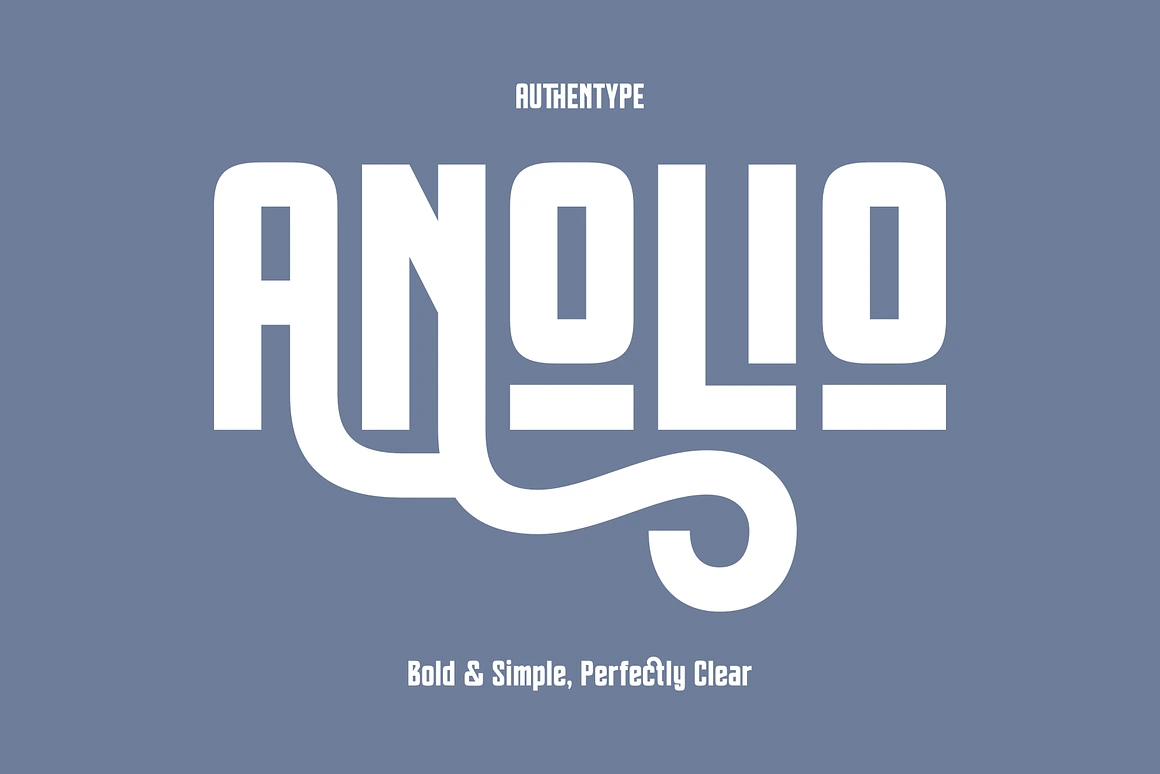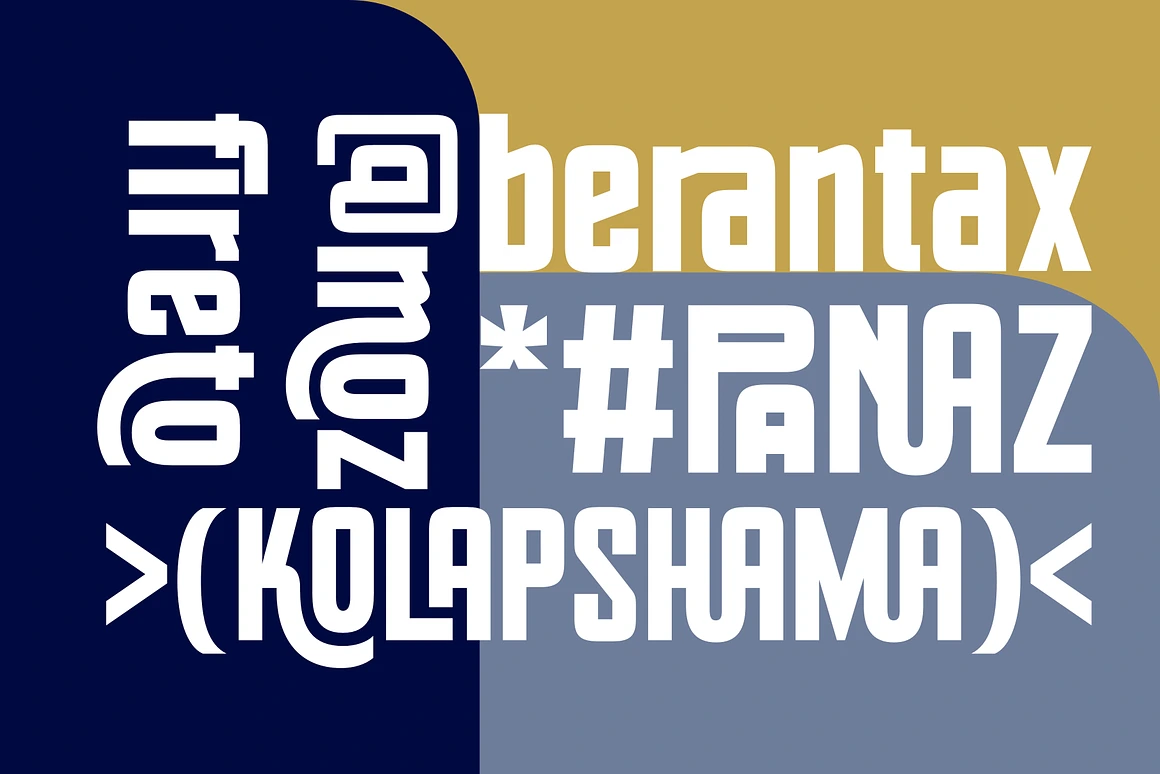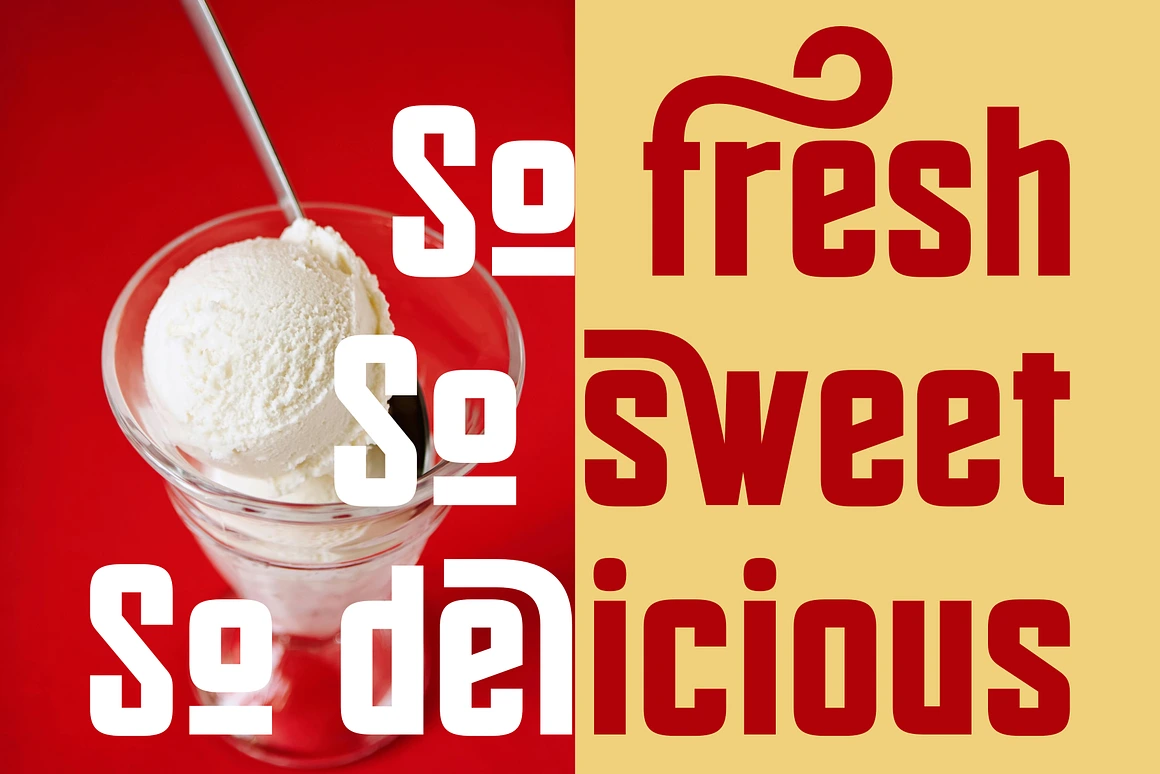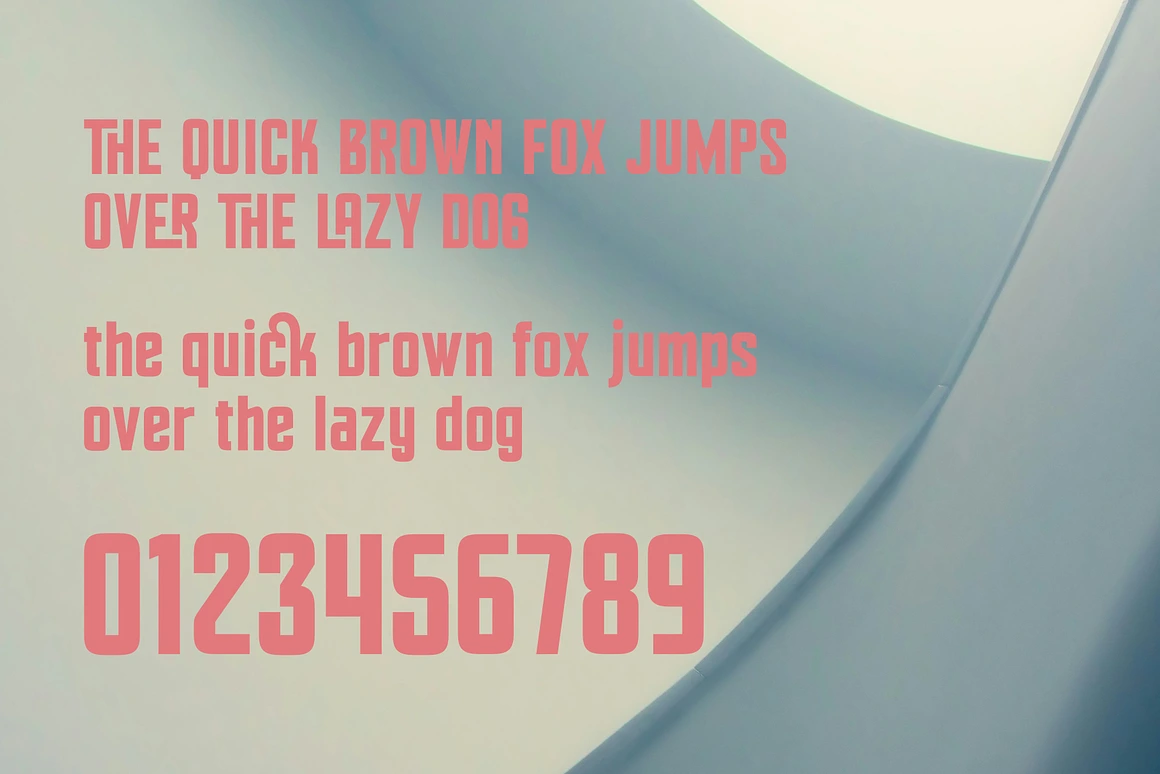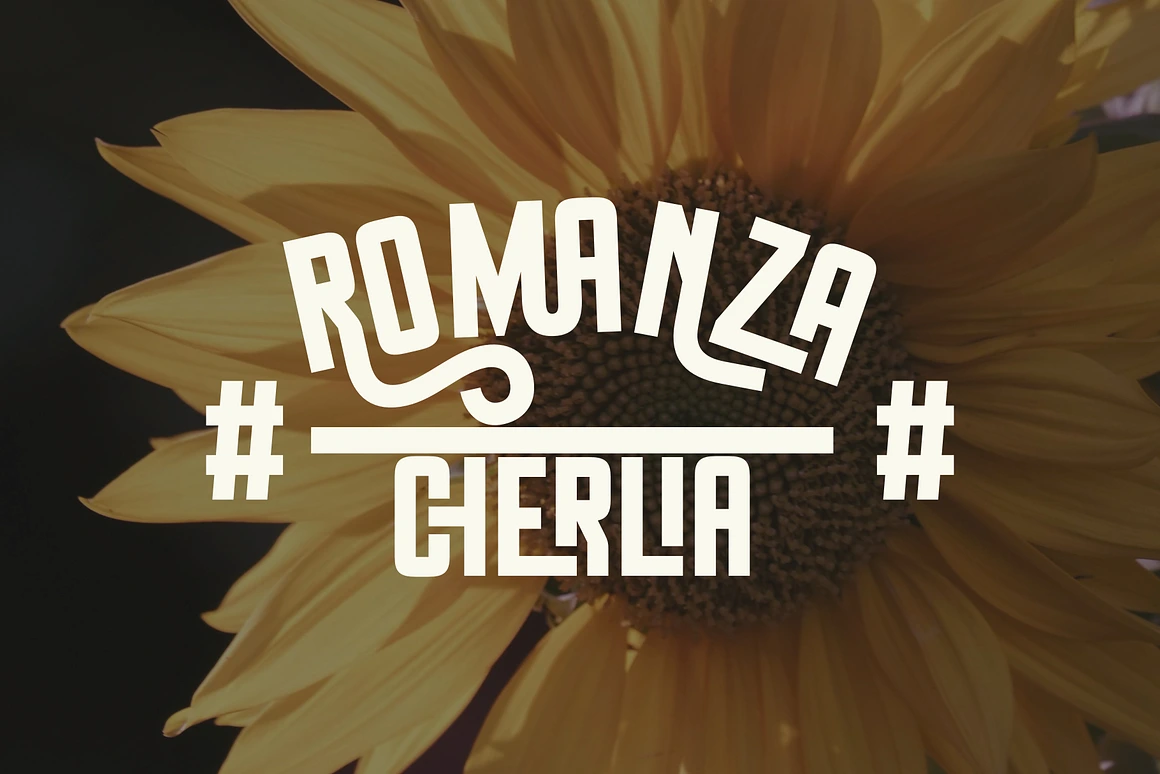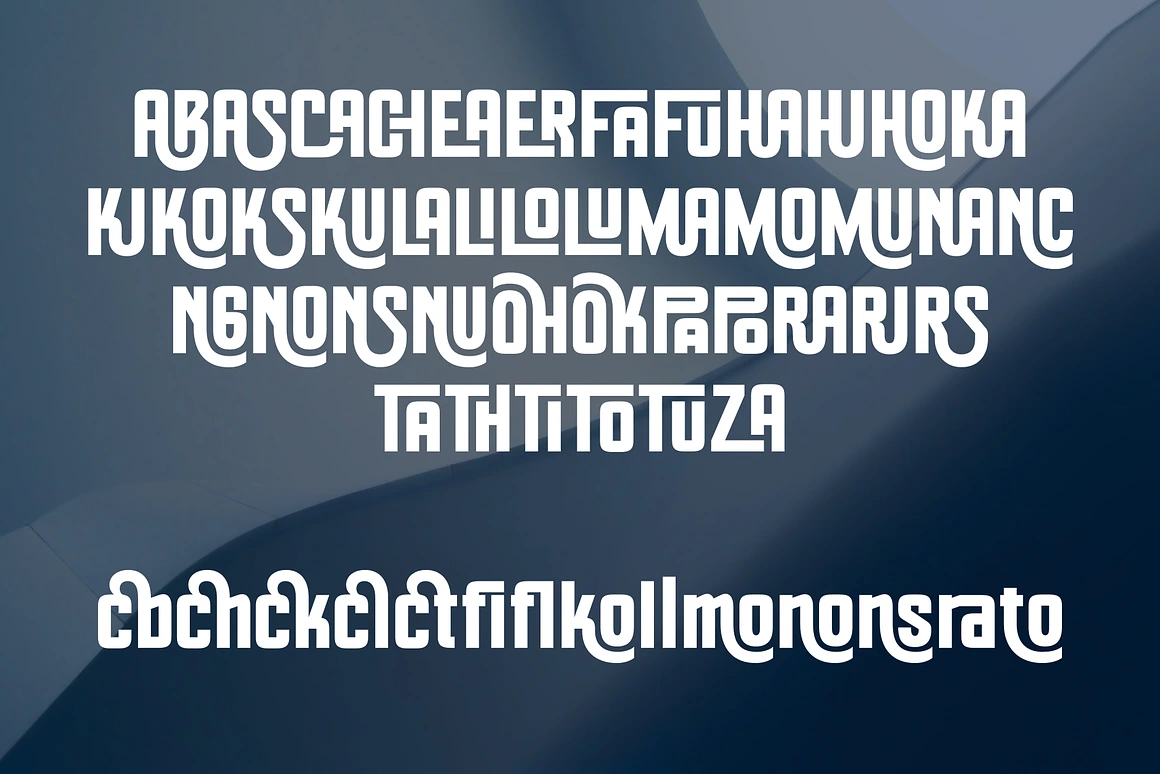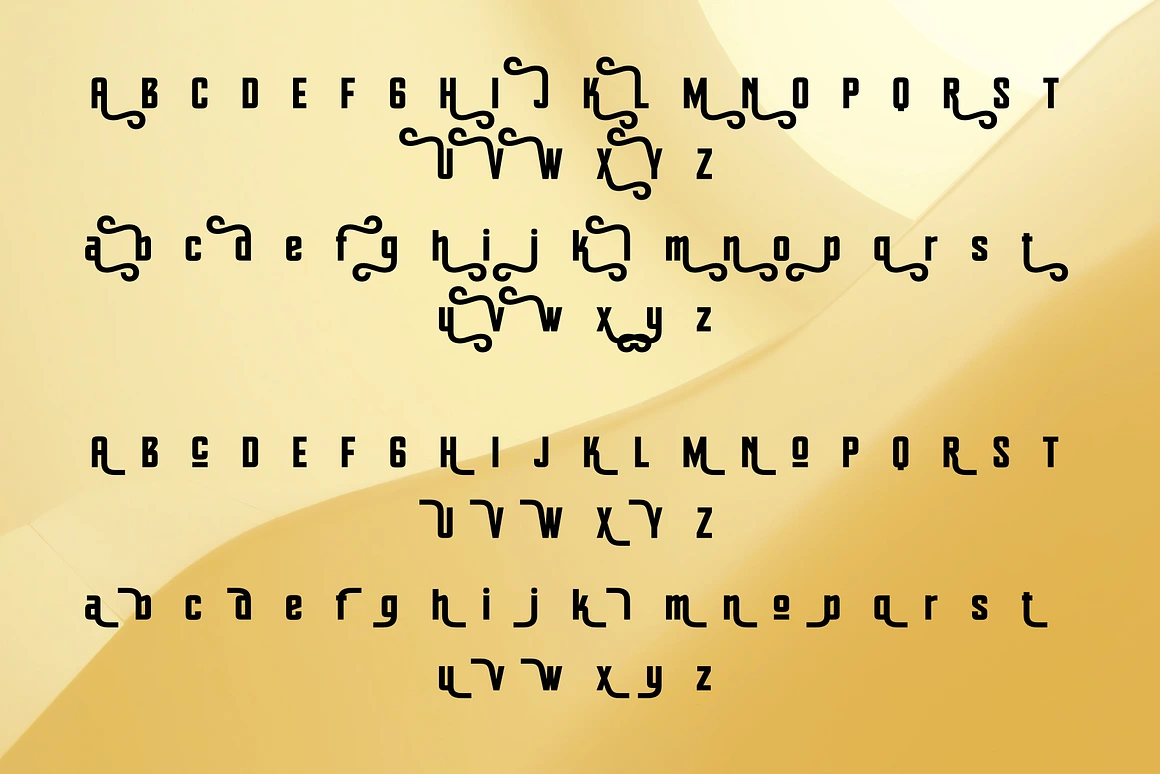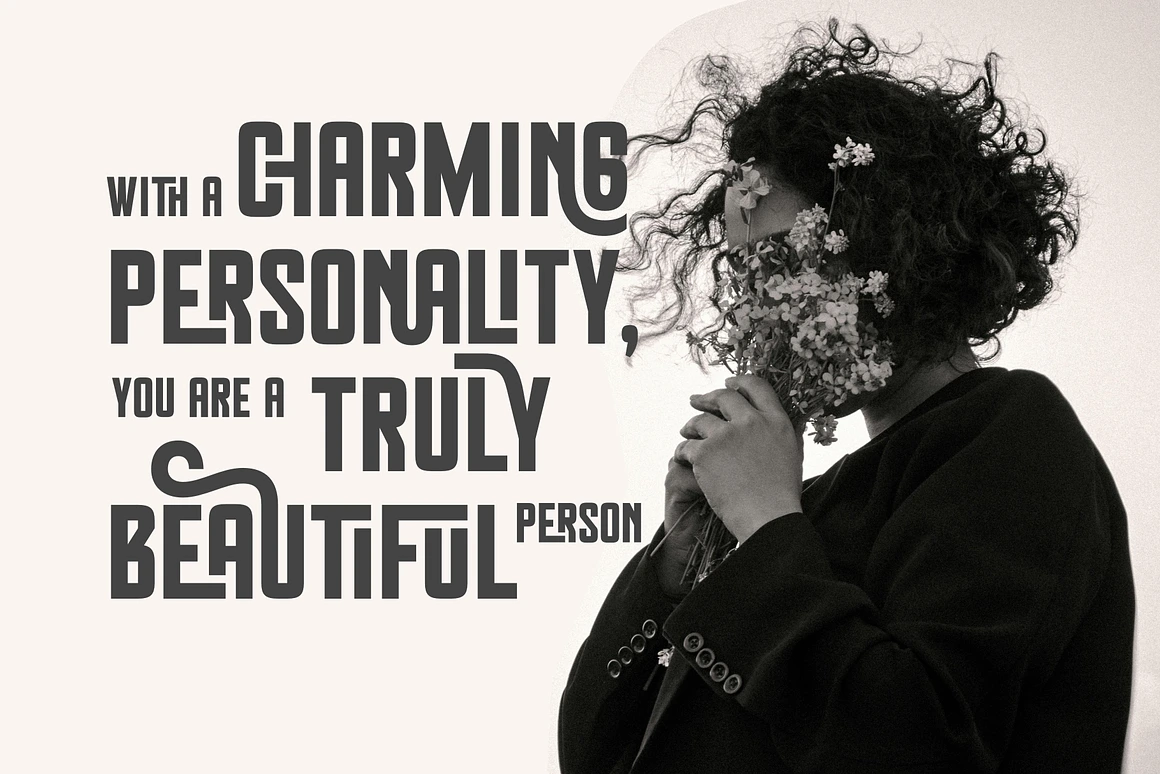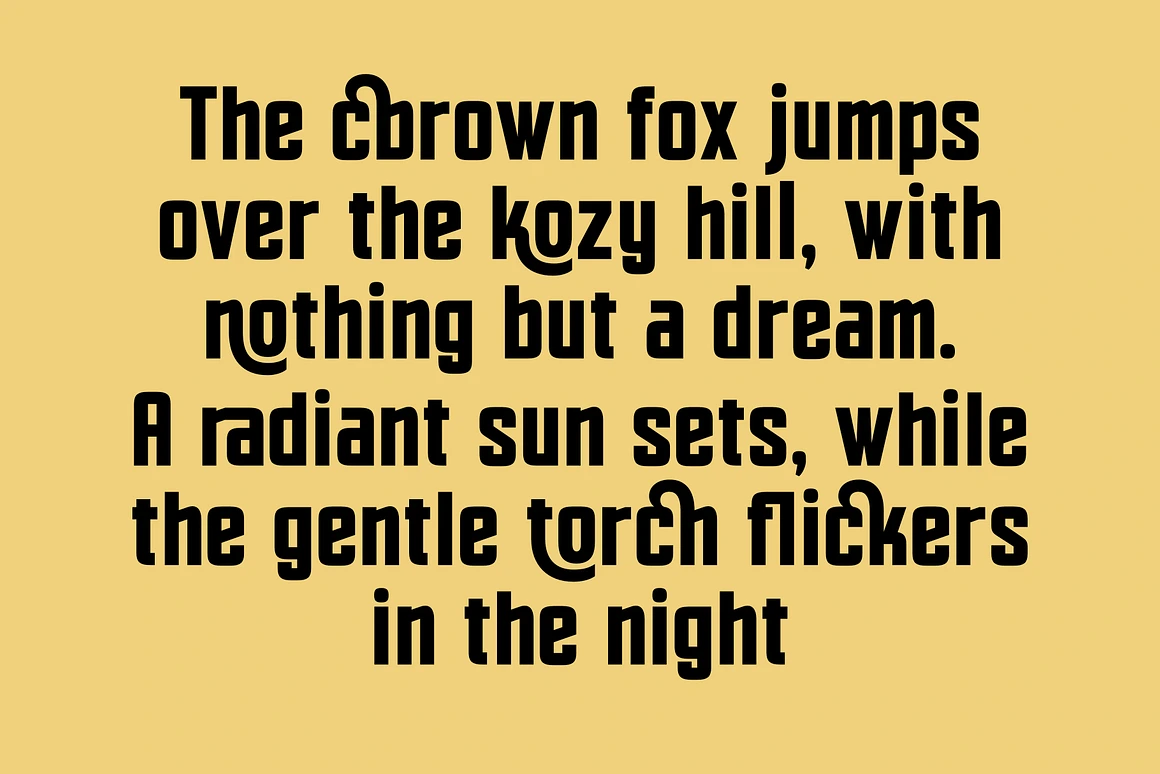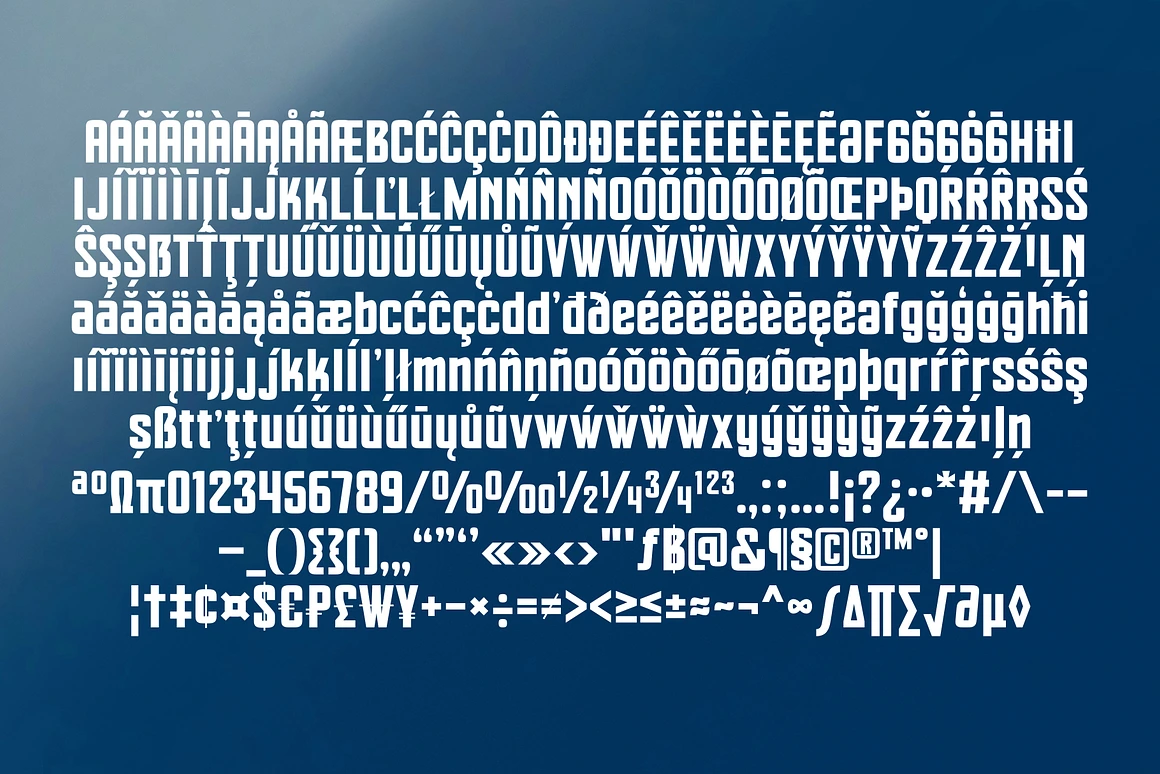
Anolio - Bold Simple and Clear Font
Anolio – Bold, Simple, and Perfectly Clear. Anolio is a modern sans-serif font designed for clarity and impact. With bold yet simple letterforms, this typeface ensures maximum readability while maintaining a sleek and contemporary look. Perfect for branding, headlines, posters, packaging, and digital content, Anolio font brings versatility and style to any project.
Make your message stand out with Anolio – where bold meets simplicity.